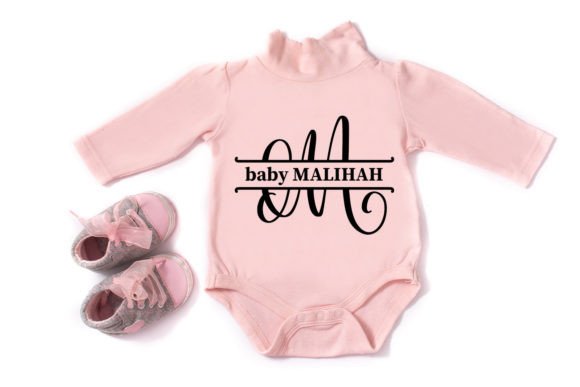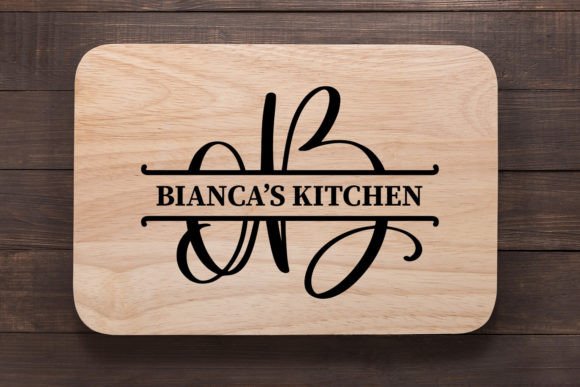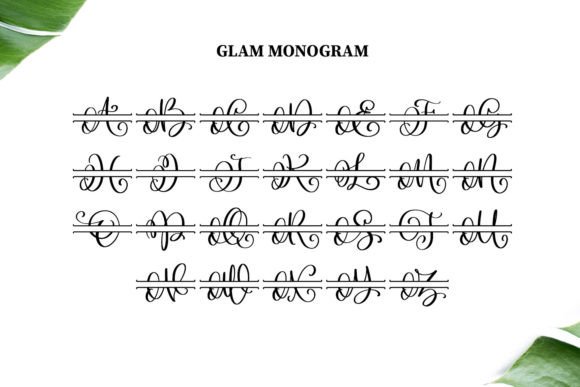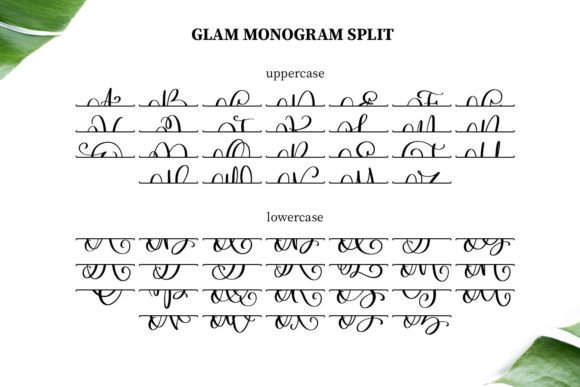
Unleash Your Creativity with Glam Monogram Font
Have you ever been in the middle of a craft project, and suddenly, the perfect font pops into your head? You envision it perfectly on a custom t-shirt, a handmade card, or a personalized mug. That’s exactly what happens when you discover the Glam Monogram Font.
This beautiful monogram decorative font is designed specifically for crafters like you. It’s perfect for adding a touch of elegance and sophistication to your projects. Whether you’re designing a logo, a quote, or a custom banner, the Glam Monogram Font is sure to make it stand out. With its versatility and charm, this font is a valuable addition to any designer’s toolkit.
So, get ready to take your craft projects to the next level with the Glam Monogram Font. Its unique style and sophistication will make your creations truly special, and its ease of use will make it a favorite among designers.
Glam Monogram Font Key Features
- Unique Characteristics: Glam Monogram Font features intricate, hand-drawn designs with elegant flourishes, making it perfect for creating high-end invitations, wedding stationery, and luxury branding materials.
- Monogram Styles: Offers a variety of monogram styles, including initials, shapes, and symbols, allowing users to customize their designs according to their preferences.
Glam Monogram Font Review
I recently had the chance to work with the Glam Monogram Font and I must say, it’s a true showstopper! ✨ The font is perfect for adding a touch of elegance and sophistication to your designs. The intricate details and flourishes make it ideal for creating beautiful monograms, logos, and other graphics.
Here are some of the things I love about the Glam Monogram Font:
- Unique style**: The font’s distinctive look sets it apart from more common fonts and adds a touch of glamour to any design.
- High-quality vectors**: The font’s vector files are crisp and clear, making it perfect for scaling up or down without losing any detail.
- Easy to customize**: The font’s flexible design makes it easy to customize and modify to fit your specific needs.
- Limited language support**: The font only includes uppercase letters, which may be a problem for designers who need to create text-heavy designs.
- Not suitable for body text**: The font’s intricate details and flourishes make it difficult to read in large blocks of text.
Overall, I’m impressed with the Glam Monogram Font and would highly recommend it for designers looking to add a touch of glamour to their designs. Just be aware of its limitations and use it judiciously.
Use Glam Monogram Font to add a touch of elegance and sophistication to your designs.
Personalized invitations, wedding stationery, and event decor.
Customized logos, branding, and marketing materials.
Decorative text and headings in social media graphics, blog posts, and website content.
Alternatives to Glam Monogram Font
Great Vibes Font is a modern and elegant script font that is perfect for adding a touch of sophistication to your designs. It is ideal for use in wedding invitations, event branding, and other high-end projects.
Compared to Glam Monogram Font, Great Vibes Font has a more refined and subtle feel, making it a better choice for projects where you want to convey a sense of luxury and elegance.